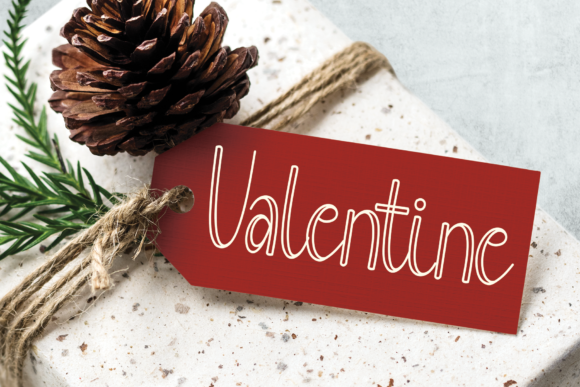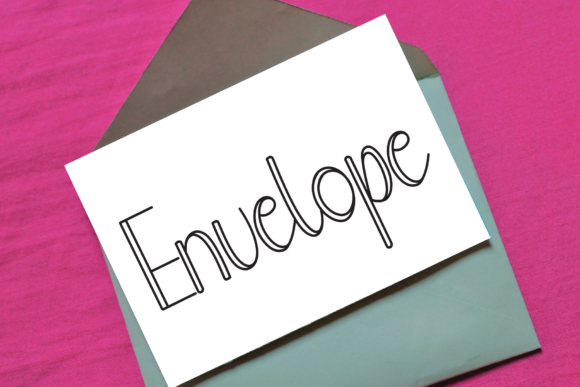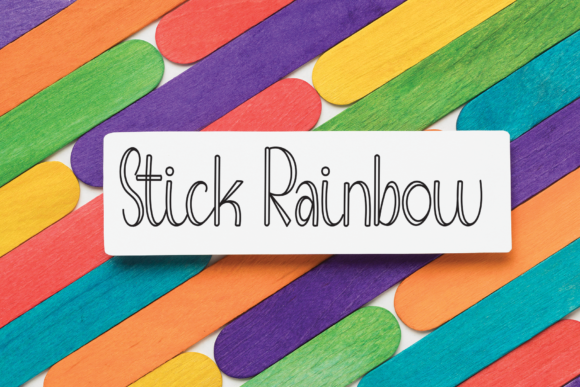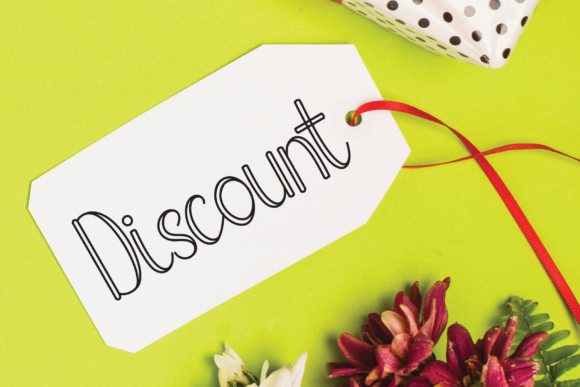
About Writen Handmade Font
This is a sweet handwritten font that was crafted with great care to produce the expected results. This font can be used to write various kinds of products according to their individual needs.